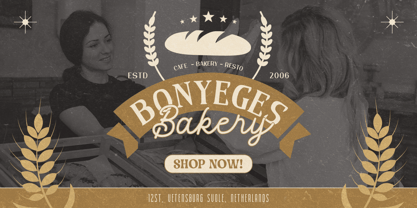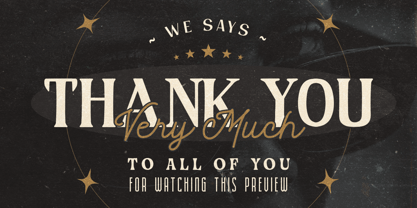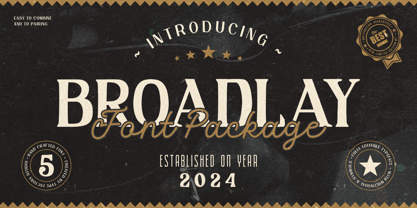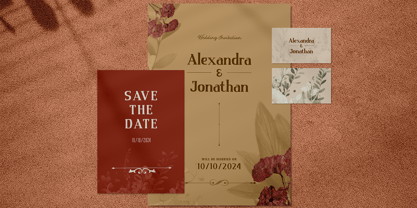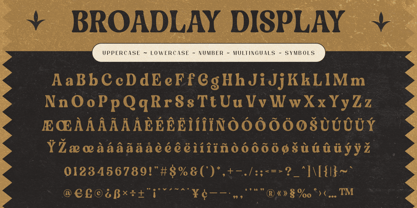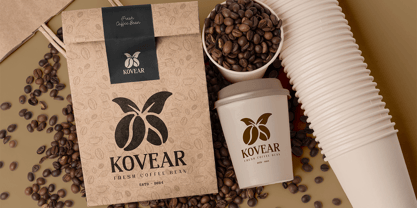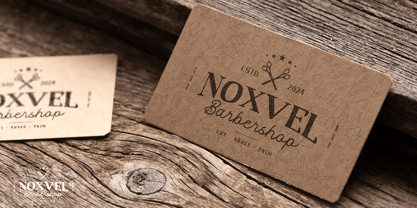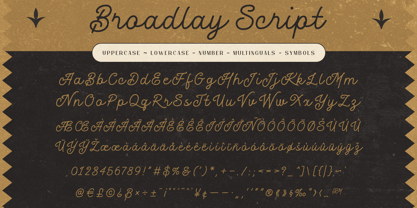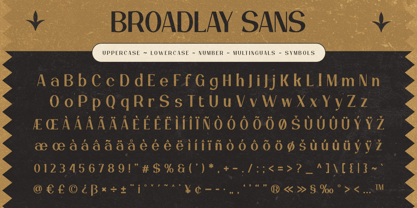
Broadlay
by Typefactory
The Broadlay Font Family was designed by Hilmius Akbar and published by Typefactory. Broadlay contains 5 styles and family package options. More about this family
Broadlay is a comprehensive vintage font package that brings the charm of the past to your modern design projects. This collection features a range of typefaces inspired by classic signage, advertisements, and typography from bygone eras. Each font in the Broadlay package exudes nostalgia and character, making it ideal for retro-themed branding, posters, packaging, and more. With its diverse selection of styles, Broadlay offers the perfect blend of authenticity and versatility, allowing you to infuse your work with a timeless, vintage appeal.
Designers: Hilmius Akbar
Foundry: Typefactory